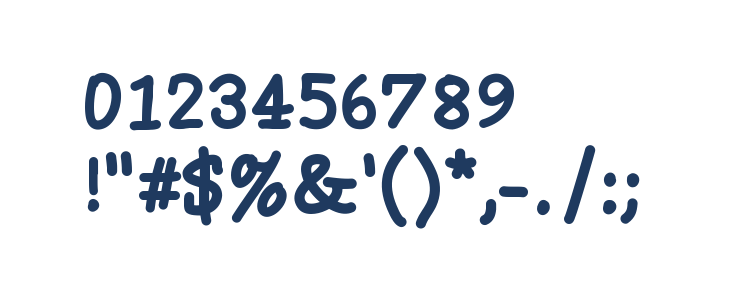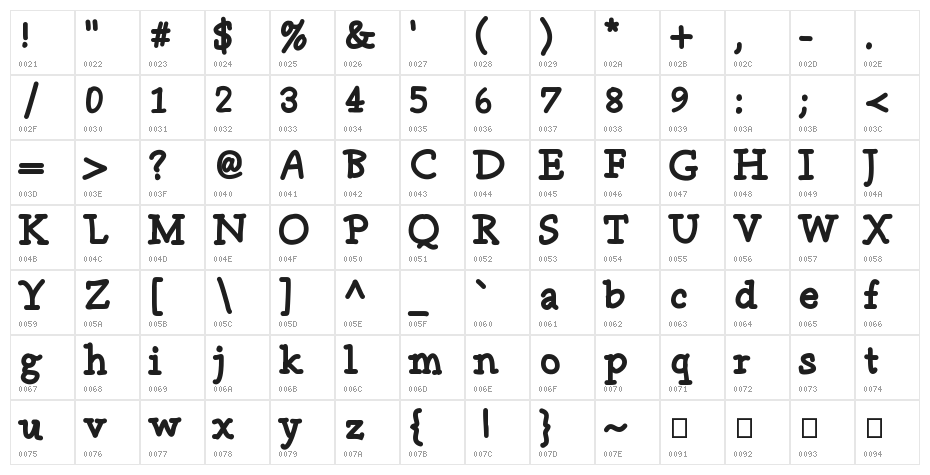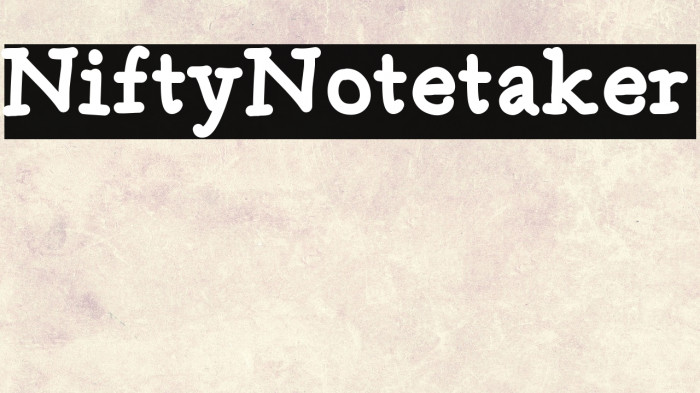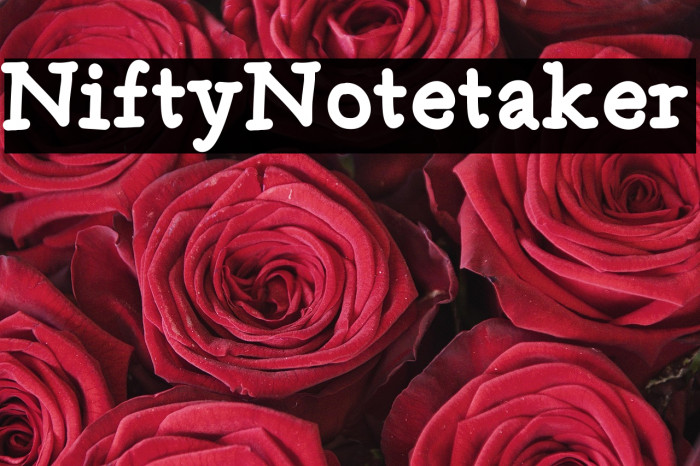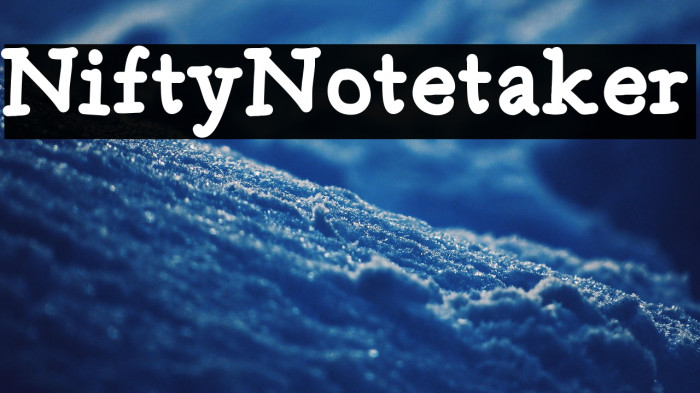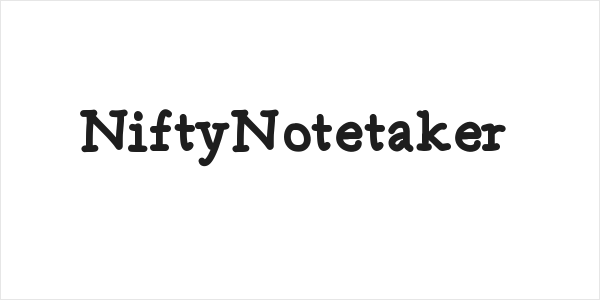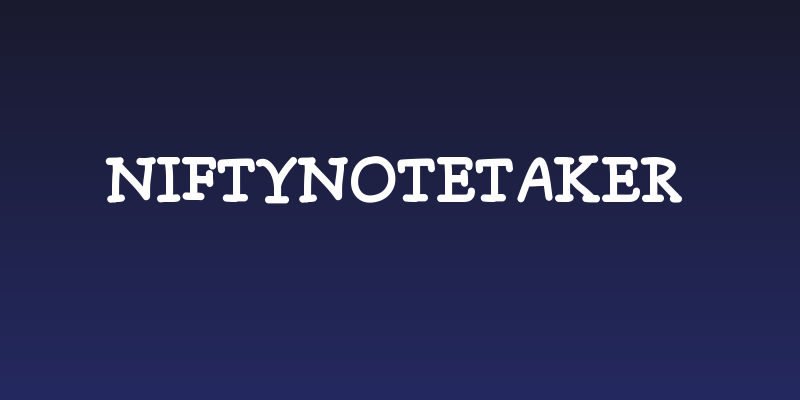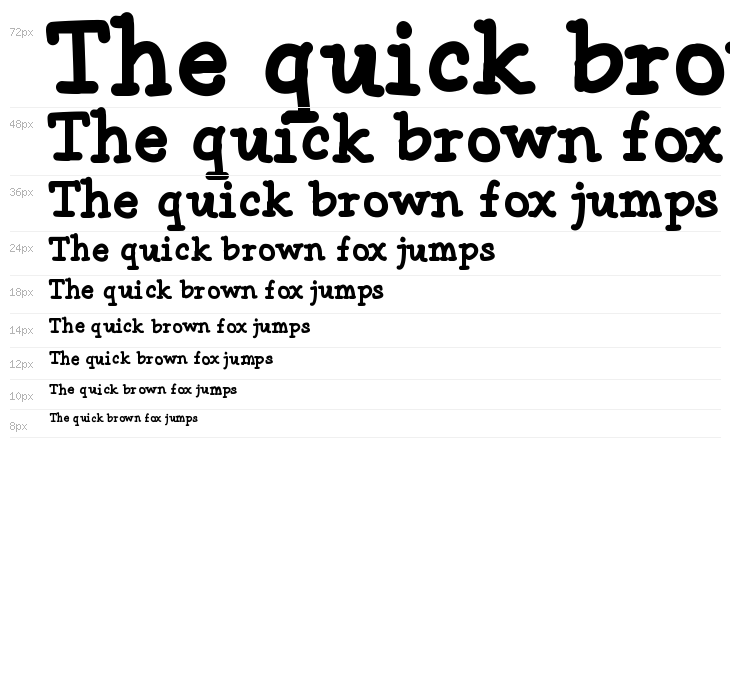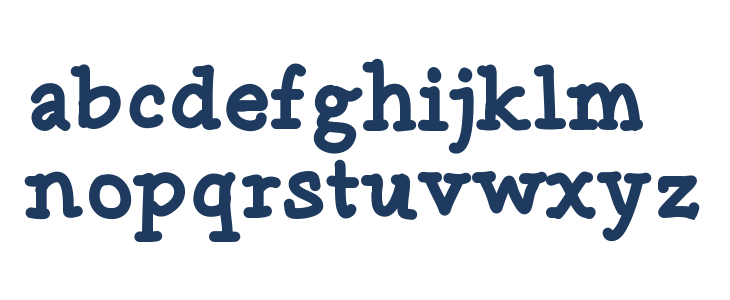
NiftyNotetaker Font
NiftyNotetaker Description
This font features a playful and bold style with rounded edges and a slightly irregular baseline, giving it a hand-drawn appearance. The uppercase letters are robust and prominent, while the lowercase letters maintain a consistent flow with a whimsical touch. The numerals are clear and easy to read, matching the overall playful aesthetic. Special characters are well-integrated, maintaining the font's cohesive look. Its unique style makes it suitable for projects that require a fun and engaging typeface.
| Proposed Projects | Ideal for children's books, playful branding, greeting cards, and creative posters. |